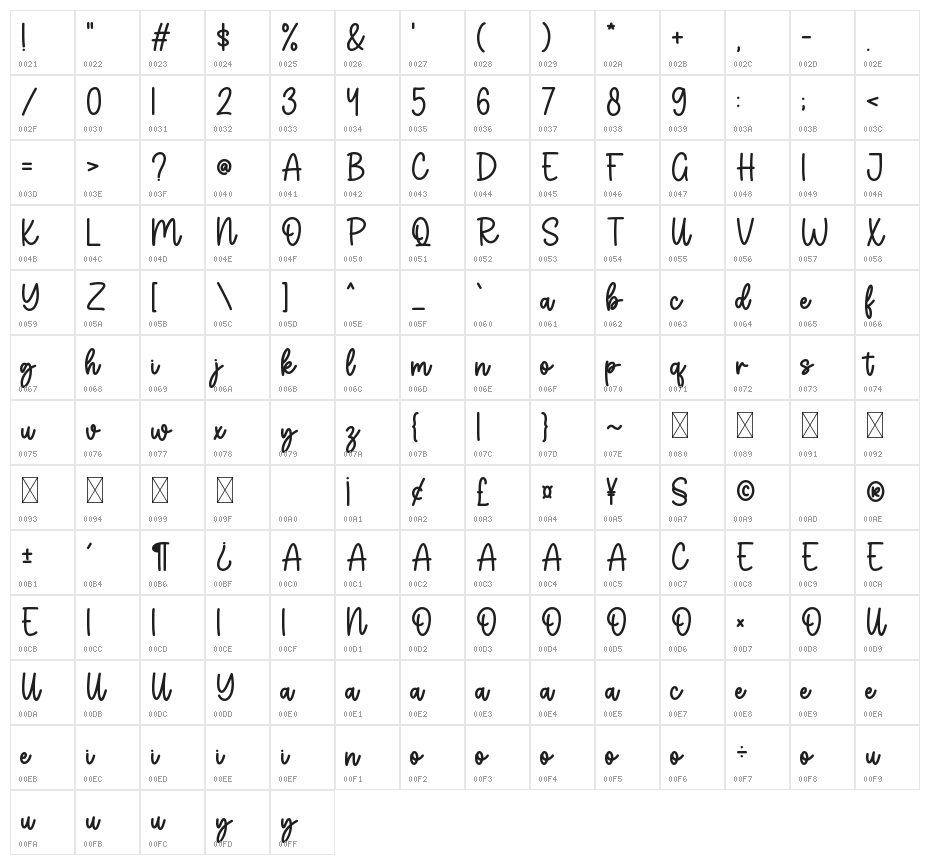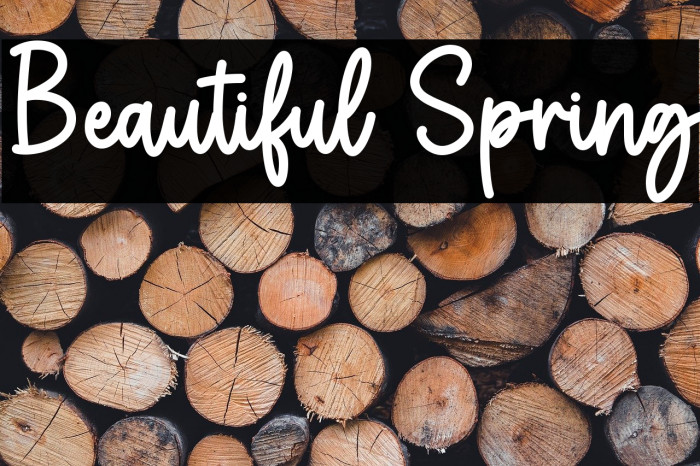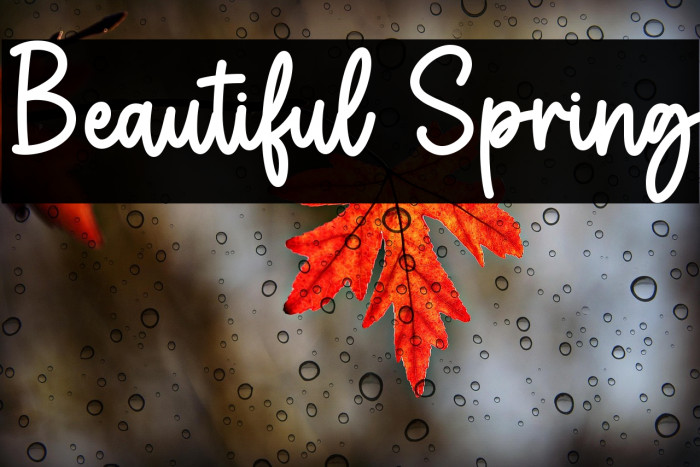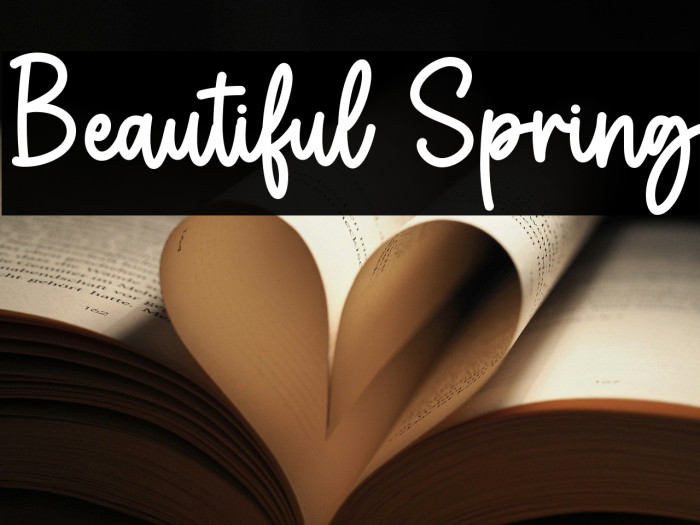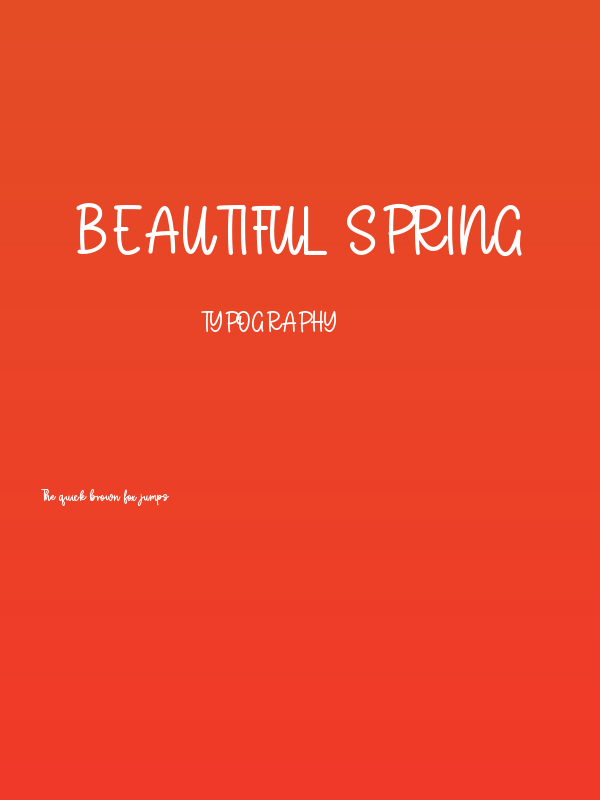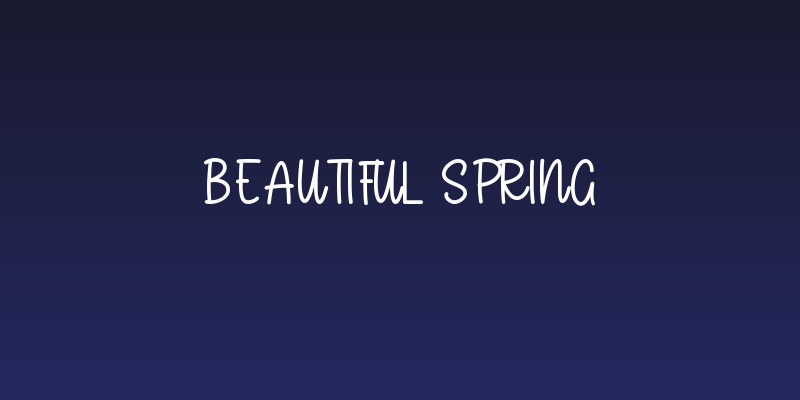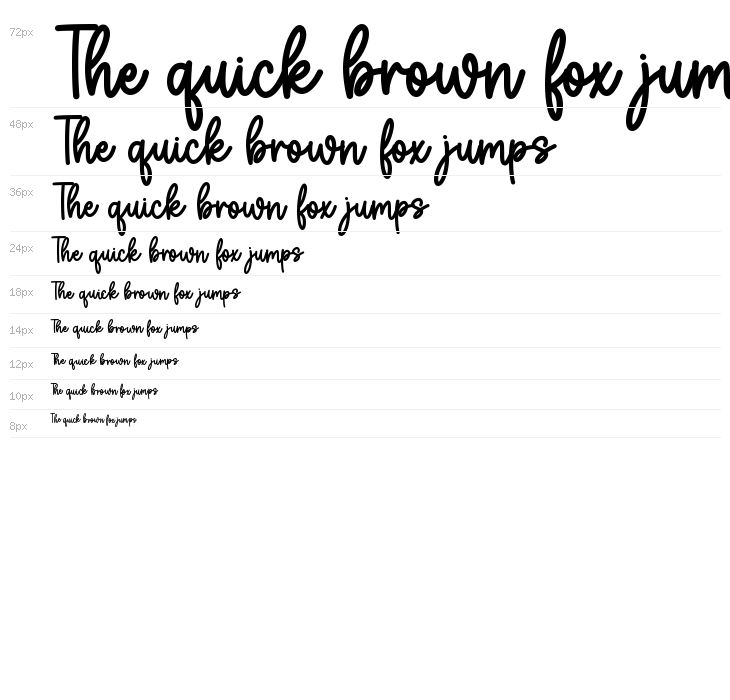
Beautiful Spring Font
Beautiful Spring Description
A playful, handwritten script font with rounded terminals and consistent stroke width. The letters are slightly condensed with a casual, friendly appearance, featuring both uppercase and lowercase sets, numerals, and a variety of punctuation marks.
| Overall Style | Playful, Casual, Decorative |
| Use Case | Headlines, Logos, Short text, Invitations |
| Proposed Projects | Greeting cards, invitations, social media graphics, children's books, branding for creative businesses. |